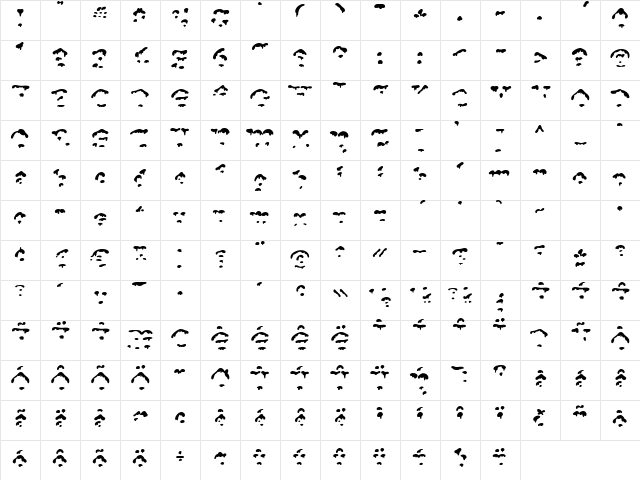
Snowgoose Front Regular
Foundry: Typodermic
Design Context for Snowgoose Front
Snowgoose Front is a composed and adaptable typeface that performs quietly and consistently across a wide range of design contexts.